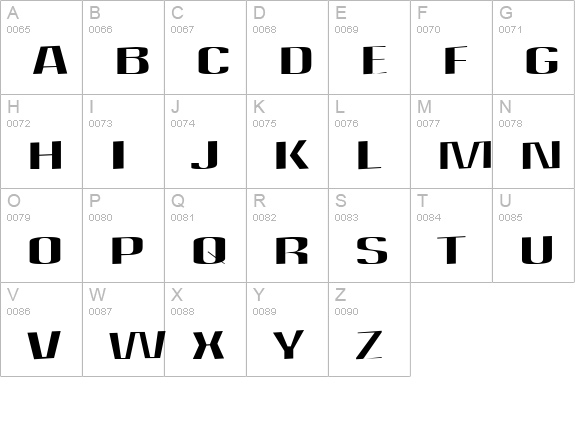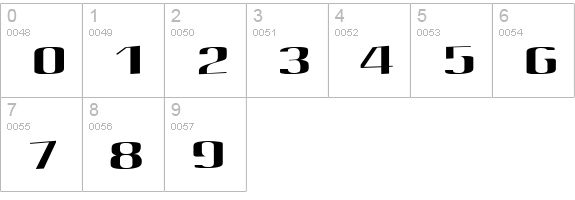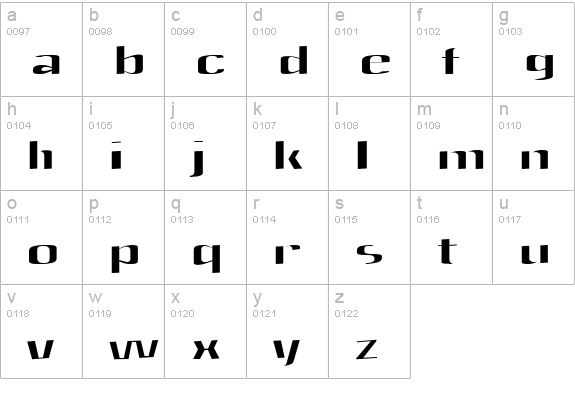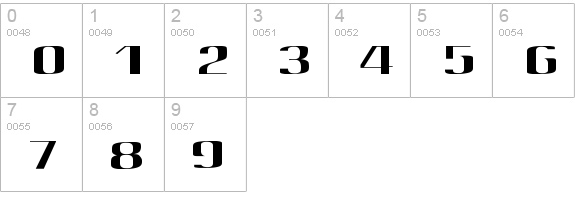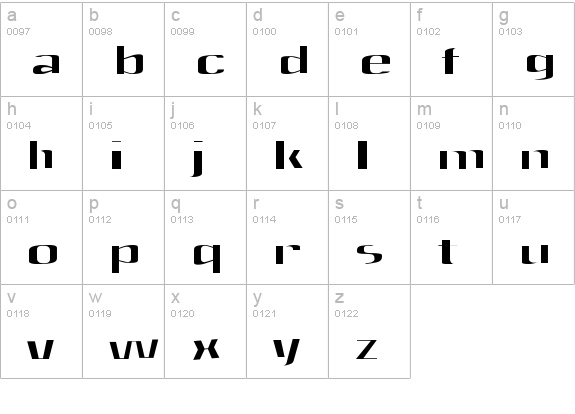
Quantity Font Details
Quantity font is a modern and versatile typeface that will add a touch of elegance and sophistication to any design project. This font is perfect for creating eye-catching headlines, stylish logos, and impactful branding materials. With its clean lines and bold strokes, Quantity font commands attention and grabs the viewer's gaze. But what sets Quantity font apart is not just its stunning aesthetics, but also its availability for free. Yes, that's right, you can freely download Quantity font at FontsMarket.com. This means that you can enjoy the beauty and functionality of this font without any cost. Whether you are a professional designer or a casual enthusiast, having access to high-quality fonts like Quantity font can significantly enhance your creative endeavors. The versatility of Quantity font allows it to seamlessly adapt to a wide range of design styles and purposes. From sleek modern websites to elegant wedding invitations, this font can elevate any project to new heights. Its graceful curves and balanced proportions make it a joy to work with, ensuring that your designs will always look polished and professional. In addition to its visual appeal, Quantity font also offers exceptional legibility. Its carefully crafted letterforms ensure that every word is clear and easy to read, regardless of the size or medium. Whether you're designing for print or digital platforms, Quantity font guarantees that your message will be effectively communicated to your audience. So why settle for ordinary when you can have extraordinary? Download Quantity font for free at FontsMarket.com and unlock a world of possibilities for your designs. With its striking beauty, versatility, and cost-free availability, Quantity font is a must-have for any designer looking to make a lasting impression. Don't miss out on this opportunity to enhance your creative projects with a font that is both visually stunning and freely accessible.